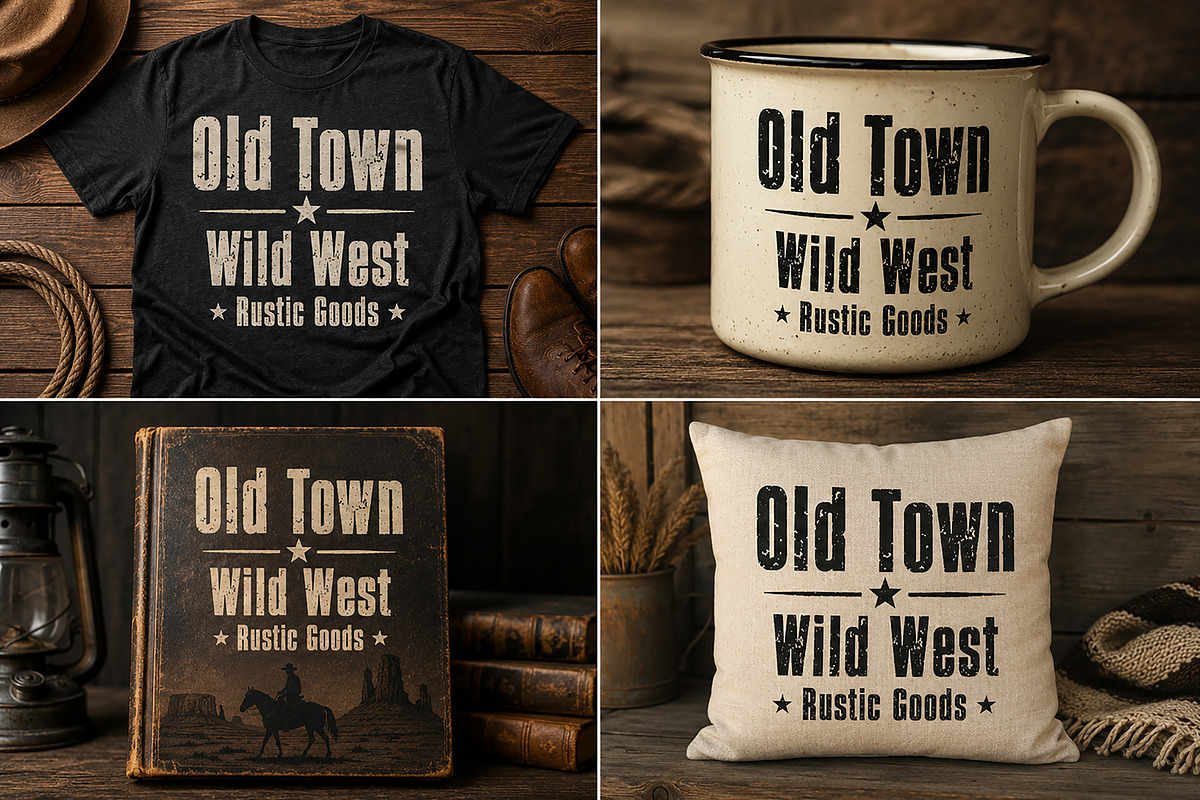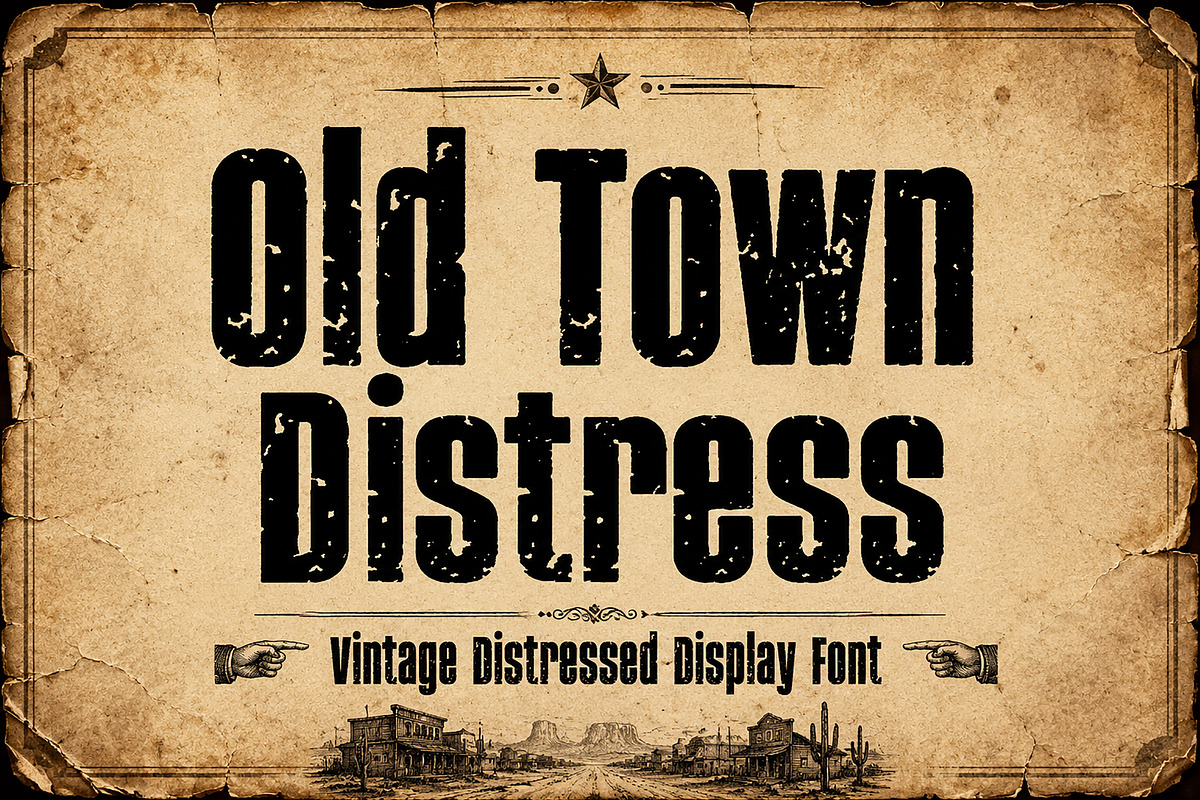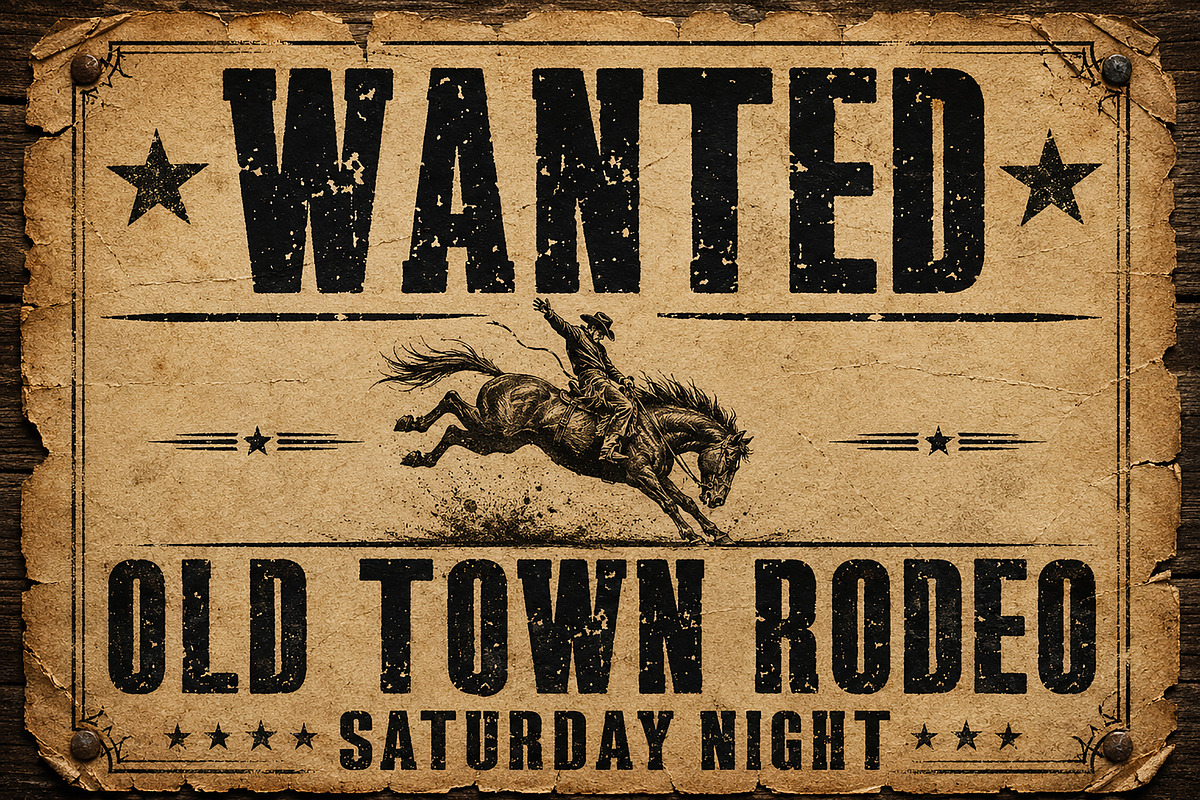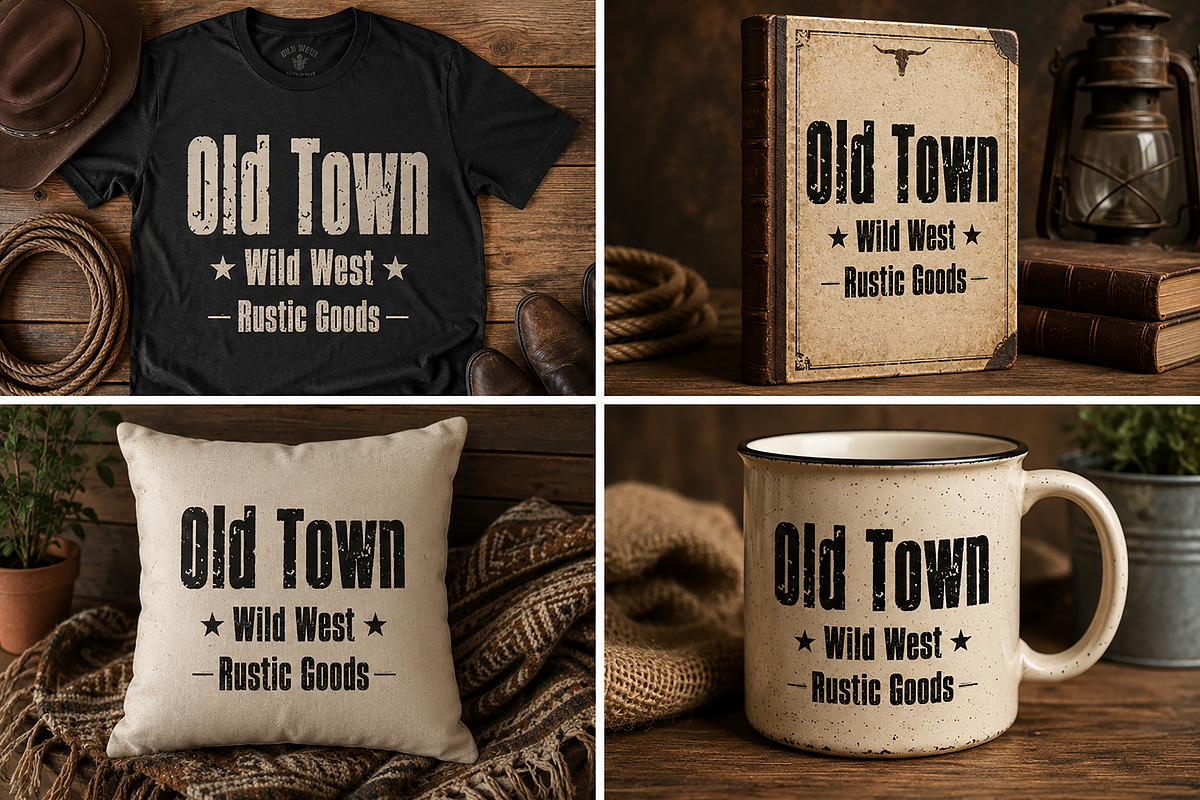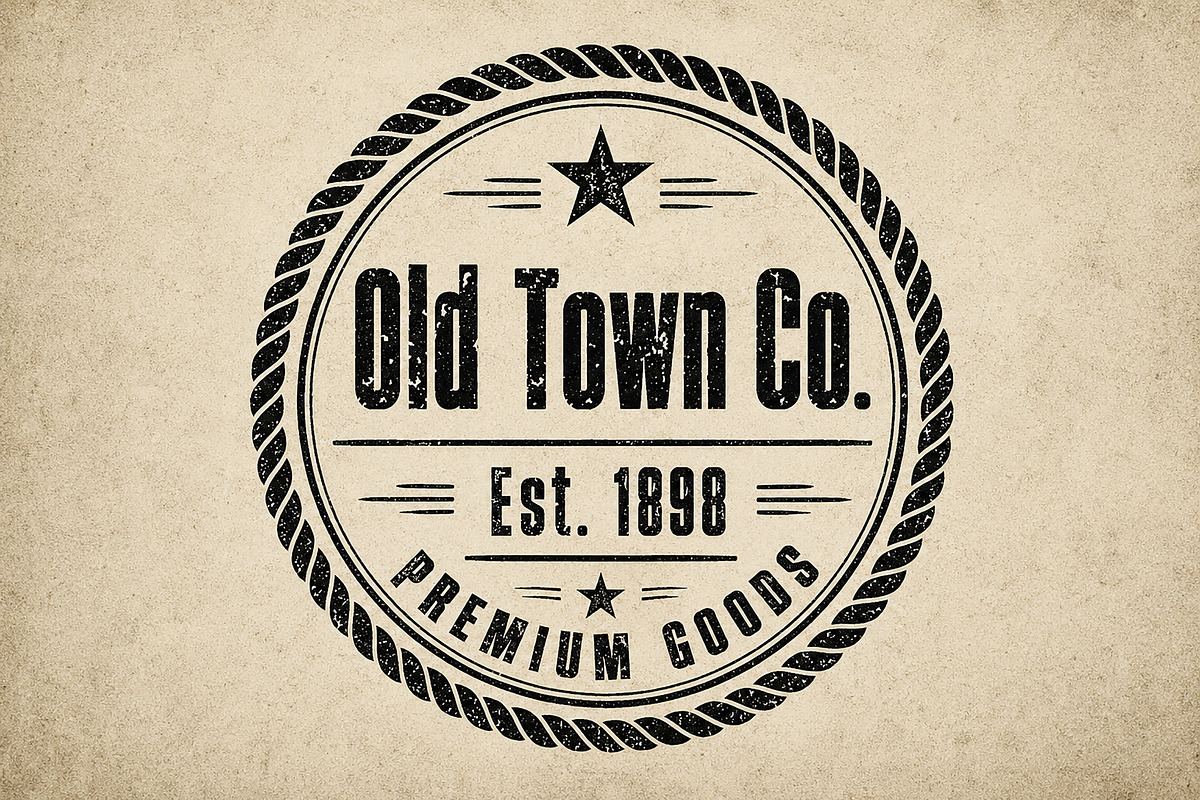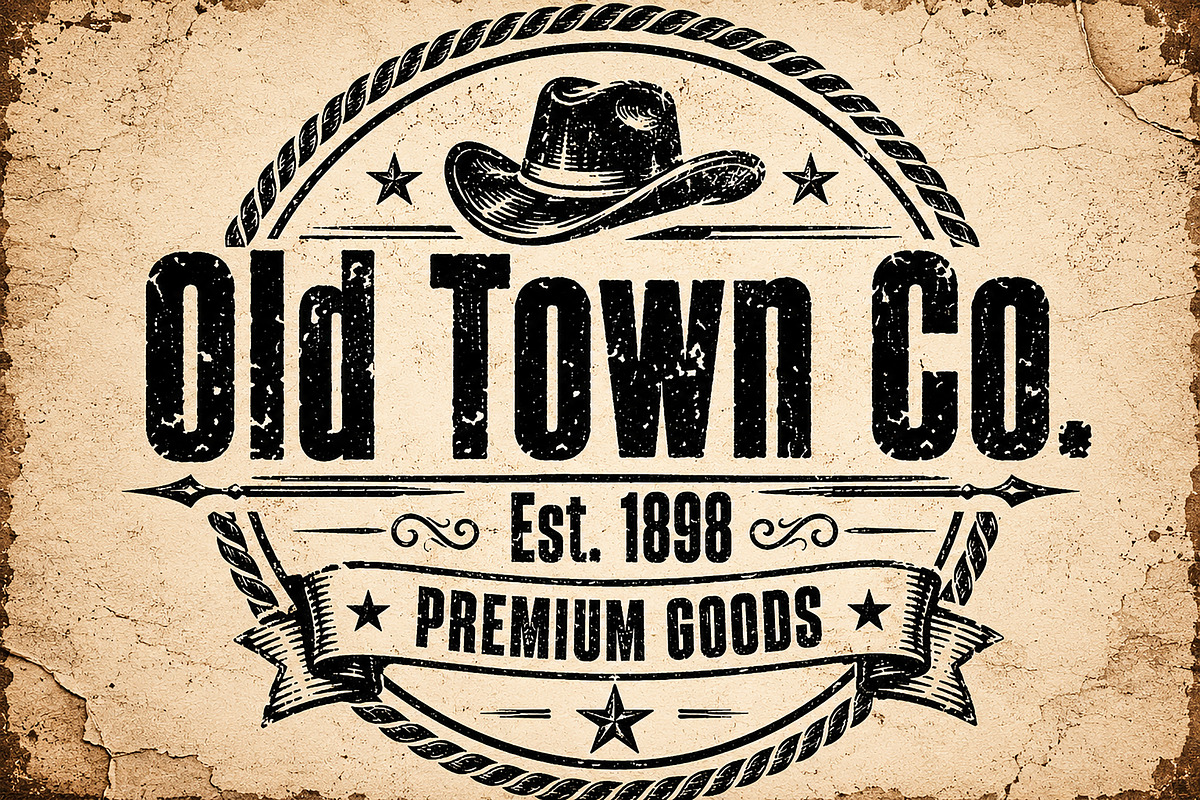
Old Town Distress
Old Town Distress – Vintage Distressed Display Font
Old Town Distress is a bold vintage display font inspired by old western towns, rustic signboards, saloon posters, rodeo events, and classic Americana typography. Featuring a rugged distressed texture and strong letterforms, this font brings an authentic weathered look to any design.
Perfect for creating eye-catching logos, branding, apparel, posters, packaging, signage, book covers, labels, merchandise, and print-on-demand products. Whether you're designing a western-themed project, country event poster, vintage brand identity, or rustic packaging, Old Town Distress delivers a timeless handcrafted feel.
The built-in distressed effect gives your designs an aged, worn, and authentic appearance without needing additional textures or editing.
• Vintage Logos
• Western Branding
• Rodeo Posters
• Country Music Events
• Saloon Signs
• Rustic Packaging
• T-Shirt Designs
• Merchandise & POD Products
• Book Covers
• Labels & Badges
• Farmhouse Decor
• Whiskey & Craft Brands
• Outdoor & Adventure Designs
• Retro Advertising
• Distressed Vintage Texture
Bring the spirit of the Wild West into your next project with Old Town Distress — a bold and rugged vintage display font designed to stand out.